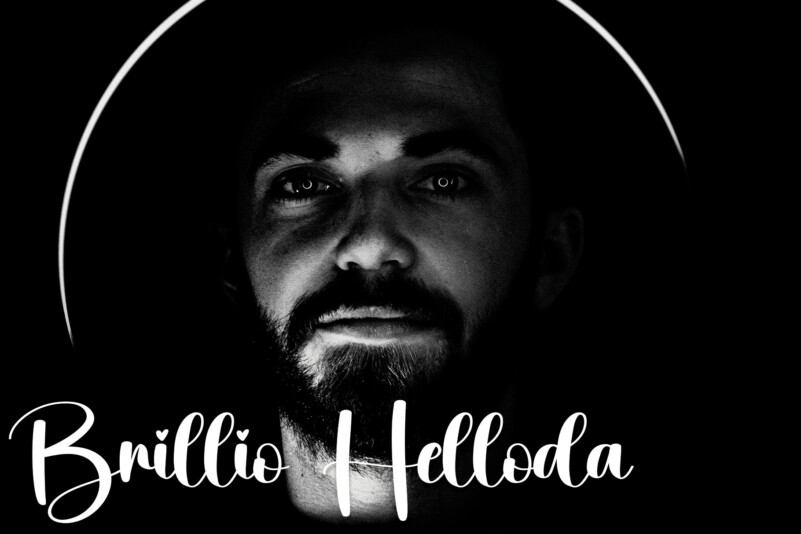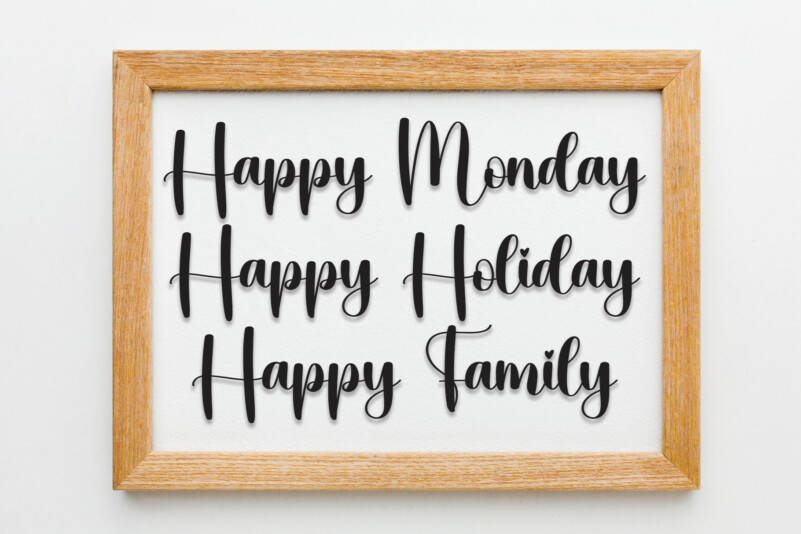
Calligraphy Script Font
Calligraphy Script Font – special creative products for you, our products will give you an extraordinary experience. the latest style letters are perfect for wall displays, wedding invitations, social media post logos,